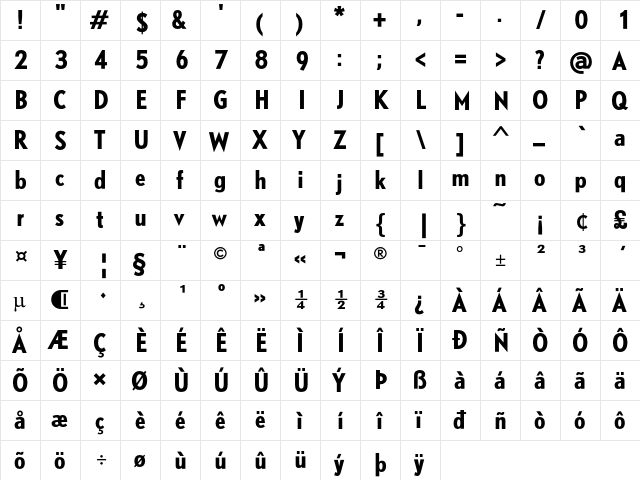
DTL Nobel T Condensed Bold
Design Context for DTL Nobel Typeface
DTL Nobel takes a measured approach to typography — its balanced proportions and neutral character make it a reliable workhorse for both digital and print work. The heavy weight commands attention and anchors typographic hierarchies. Its narrow stance lets it pack a punch even in space-constrained designs.